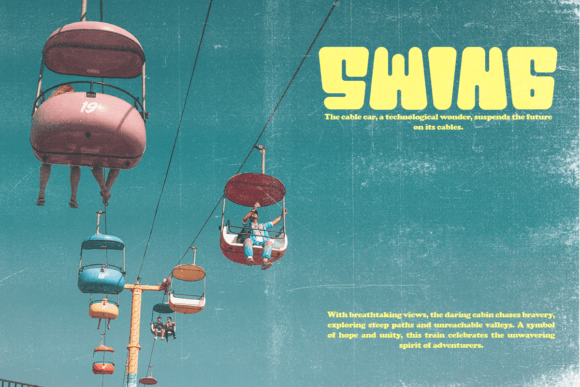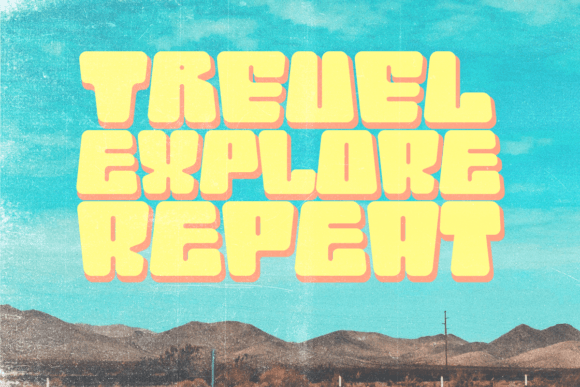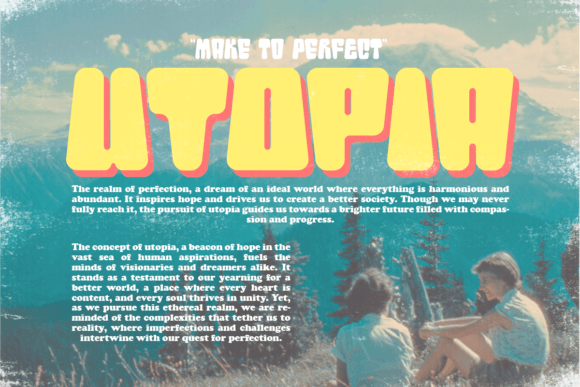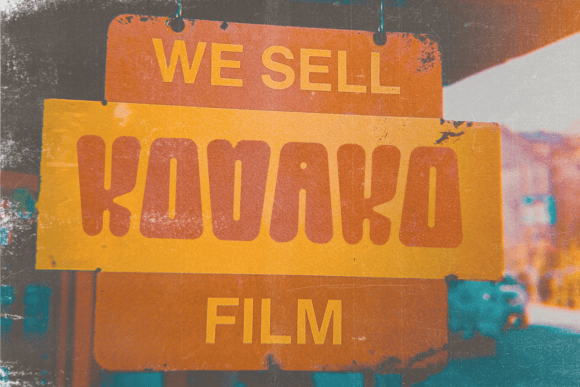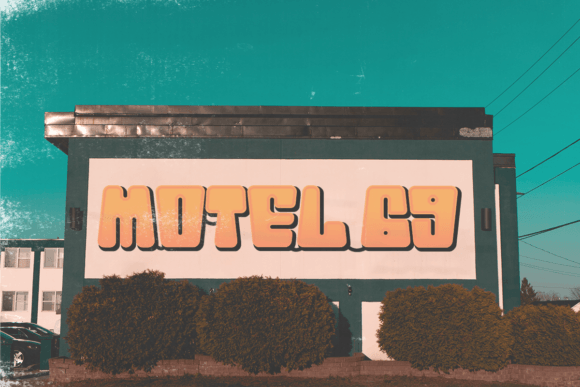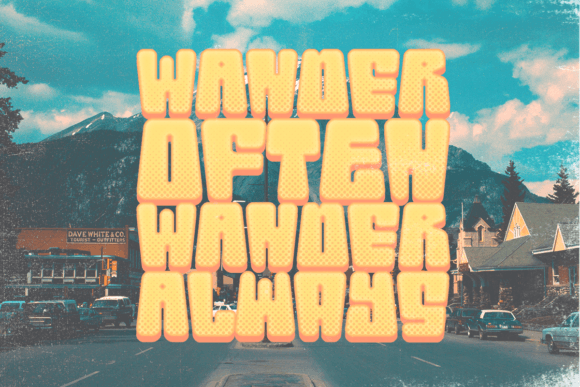
Introduction to Retro Disco Font
Do you remember the thrill of digging through a thrift store for the perfect disco outfit, only to find a sparkly jumpsuit that makes you feel like the queen of the dance floor? That same excitement is what inspired the creation of the Retro Disco Font, a high-quality design resource that’s sure to get your creative juices flowing.
As a designer, you know how important it is to have the right tools at your disposal to bring your vision to life. The Retro Disco Font is a valuable addition to any design project, offering a unique blend of quirky boldness and playfulness that’s guaranteed to make your work stand out. With a free download available, you can easily add this fun and eclectic font to your design arsenal and start creating something truly unforgettable.
From logos to social media graphics, the Retro Disco Font is the perfect companion for any creative project. Its transparent background makes it easy to layer and customize, giving you complete control over the look and feel of your design. So why settle for boring and bland when you can have a little fun with the Retro Disco Font?
Key Features of Retro Disco Font
- High-quality, unique font design inspired by the disco era, perfect for creative projects that require a nostalgic touch.
- Unique characteristics include bold, vibrant lines and intricate details, making it an ideal choice for creative projects that require a retro flair.
- Perfect for designers, artists, and marketers looking to add a touch of nostalgia and glamour to their designs, logos, and branding materials.
I recently came across the Retro Disco Font, and I was excited to see if it would add a funky touch to my design projects. As a designer, I’m always on the lookout for high-quality fonts that can elevate my work.
What works well about this font is its fun and playful vibe. The Retro Disco Font is perfect for creative projects that need a nostalgic feel, such as music festival posters, retro-themed websites, or even Instagram captions. It’s also free to download, making it a fantastic design resource for those on a budget.
- ✨ Great for music, fashion, and entertainment-related designs
However, I do have some concerns about the font’s limitations. The Retro Disco Font may not be suitable for formal or professional projects, as its playful vibe can come across as unprofessional in certain contexts.
Overall, I’d say the Retro Disco Font is a great addition to any designer’s toolkit. While it may have some limitations, its fun and playful vibe makes it a must-have for creative projects that need a retro touch.
For the best results, use the Retro Disco Font in combination with other design elements that fit its retro theme. Experiment with different font sizes, colors, and backgrounds to create a unique look. You can also use it to add a touch of humor or whimsy to your design.
The Retro Disco Font is perfect for designing graphics and materials for events, parties, and music festivals. It’s also great for creating social media posts and graphics for music-related businesses and artists. With its high-quality design and transparent background, it’s a valuable design resource for any creative project.
Yes, the Retro Disco Font is highly customizable, allowing you to adjust the font size, color, and style to fit your design needs. You can also use font editors to modify the font’s characteristics and create unique variations. This flexibility makes the Retro Disco Font a valuable resource for designers looking to add a touch of creativity to their projects.